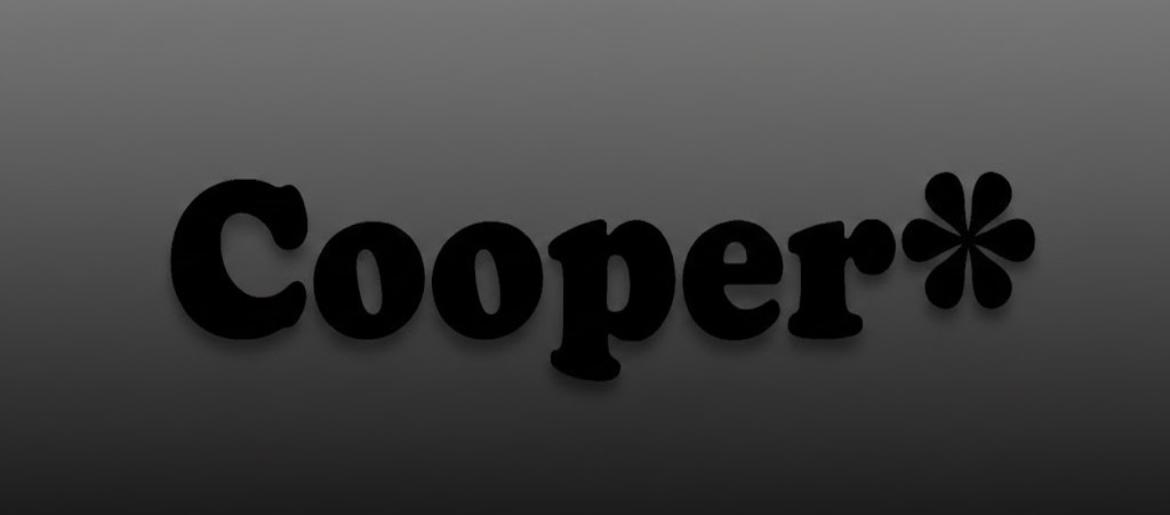
Cooper Font
Cooper Font is a classic serif typeface designed by Oswald Cooper and released by Barnhart Brothers & Spindler in the 1920s. While Cooper Black became widely popular, the original regular-weight Cooper was part of the same family and gradually faded from use. Today, rediscovering Cooper highlights timeless typography heritage, making it relevant again in modern design discussions, including free fonts explorations and historical revivals.
➤ Font Name: Cooper
➤ Designer: Indestructible Type
➤ Style: Serif